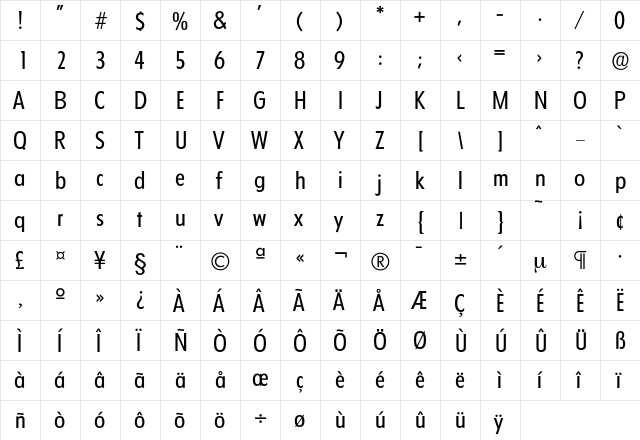
Florida-Regular Regular
Design Context for Florida-Regular Typeface
Florida-Regular offers clean, dependable letterforms without strong stylistic allegiance, making it a practical choice for designers who need flexibility.